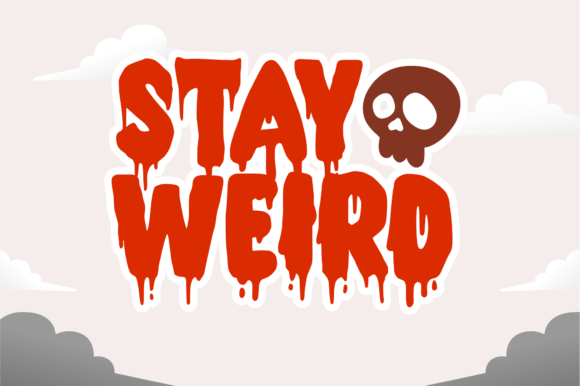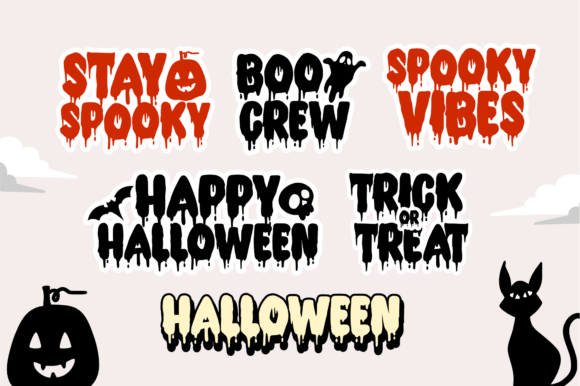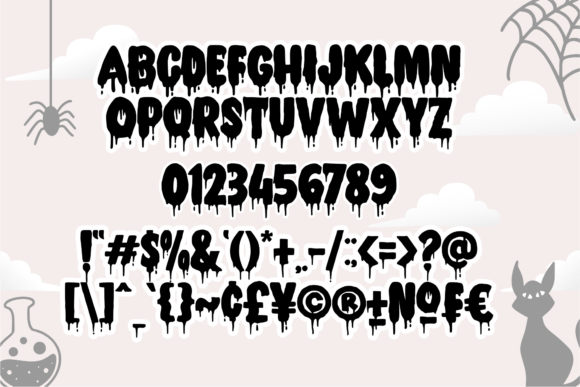
Introduction to Hello Momster Font
As designers, we’ve all been there – staring at a blank canvas, searching for the perfect font to bring our creative project to life. It’s that moment when inspiration strikes, and you know exactly what you need to make it happen. For me, it was when I stumbled upon the Hello Momster Font – a bold, scary, and wild display font that screams Halloween and Horror projects. With its dripping style, this font is sure to take any high-quality design to the next level.
What I love about Hello Momster Font is its ability to add an eerie touch to any design. Its transparent background makes it easy to layer with other design elements, and the best part? It’s available for a free download, making it an invaluable resource for designers looking to spice up their creative projects.
Key Features of Hello Momster Font
- Unique Hand-Drawn Design: The Hello Momster Font features a one-of-a-kind, hand-drawn design that adds a personal touch to any creative project.
- High-Quality Font: This font is designed with high-quality in mind, ensuring that it looks great on various backgrounds and is perfect for professional use.
- Transparent Background: The font’s transparent background makes it easy to use on any design, from simple to complex, and allows for seamless integration with other design elements.
- Large Character Set: The font includes a large character set, including uppercase and lowercase letters, numbers, and punctuation marks, making it a versatile design resource.
- Resolution: The font is designed to be resolution-independent, ensuring that it looks great at any resolution, from low to high.
Honest Review: Hello Momster Font
I recently had the chance to try out the Hello Momster Font, and I must say, it’s been a fun addition to my design toolbox. As a designer, I’m always on the lookout for high-quality fonts that can elevate my creative projects. The Hello Momster Font is a great resource for anyone looking to add a playful touch to their designs.
One of the things that works well with this font is its versatility. It’s perfect for a wide range of creative projects, from social media graphics to digital invitations. The font is available for free download, which is a huge plus in my book. Plus, it’s available in a transparent background, making it easy to work with.
Here are some of the things I like about the Hello Momster Font:
- ✨ Available in a transparent background for easy design work
However, I did notice a few limitations:
- ⚠️ Limited character set, which may be a problem for longer text-based projects
- ⚠️ Not suitable for professional or formal designs, due to its playful nature
Overall, I’m really impressed with the Hello Momster Font. It’s a great design resource that’s perfect for designers who want to add a little fun to their projects. Just be aware of its limitations, and you’ll be all set to create some amazing designs!
Hello Momster Font
The Hello Momster Font is a unique and high-quality design resource perfect for creative projects that require a playful touch. This versatile font can be used in a variety of contexts, from branding and marketing materials to digital designs and print materials.
Tips for Getting the Most Out of Hello Momster Font
To get the most out of the Hello Momster Font, use it with a transparent background to create a seamless and modern design. You can also pair it with other fonts and design elements to create a unique and eye-catching look.
Common Use Cases for Hello Momster Font
The Hello Momster Font is commonly used in creative projects such as branding and marketing materials, social media graphics, presentations, and print materials. It’s also a great choice for designers who want to add a playful touch to their designs.